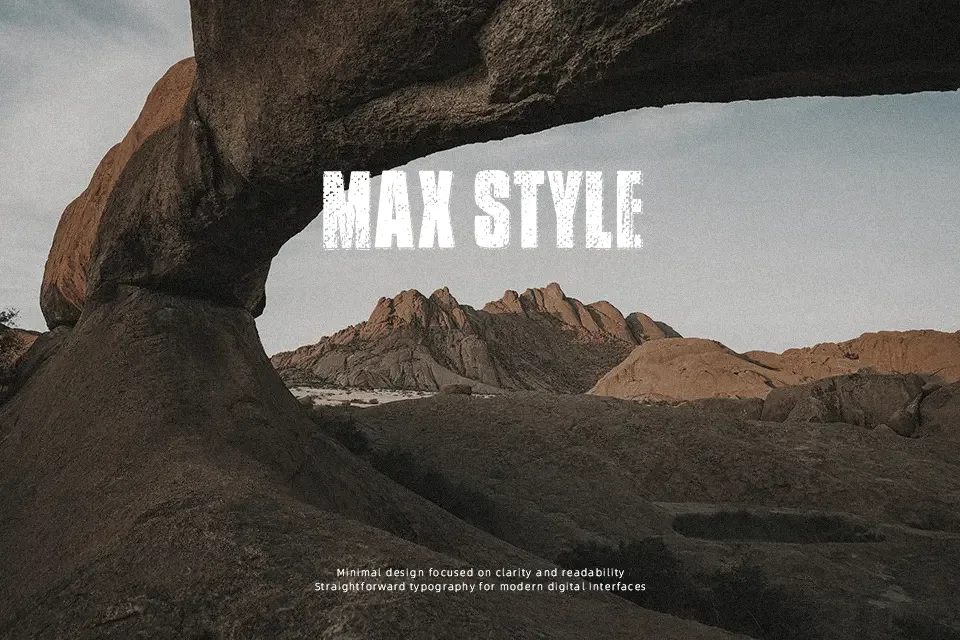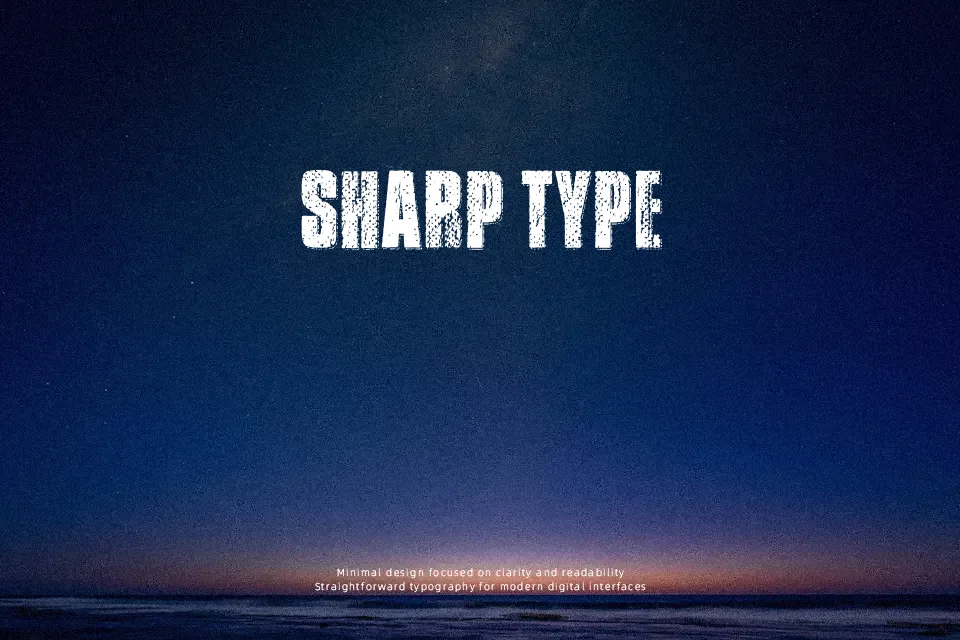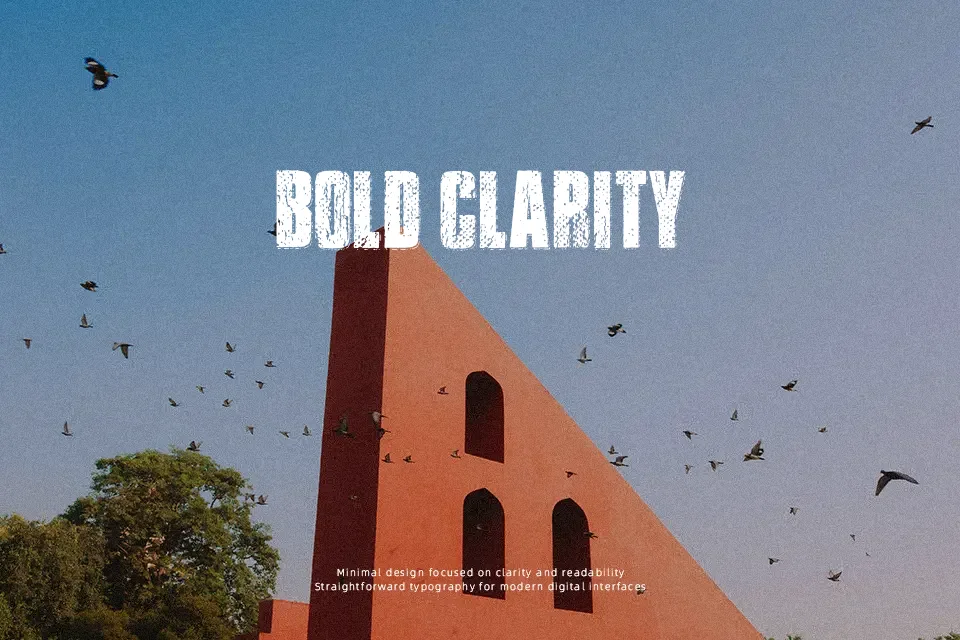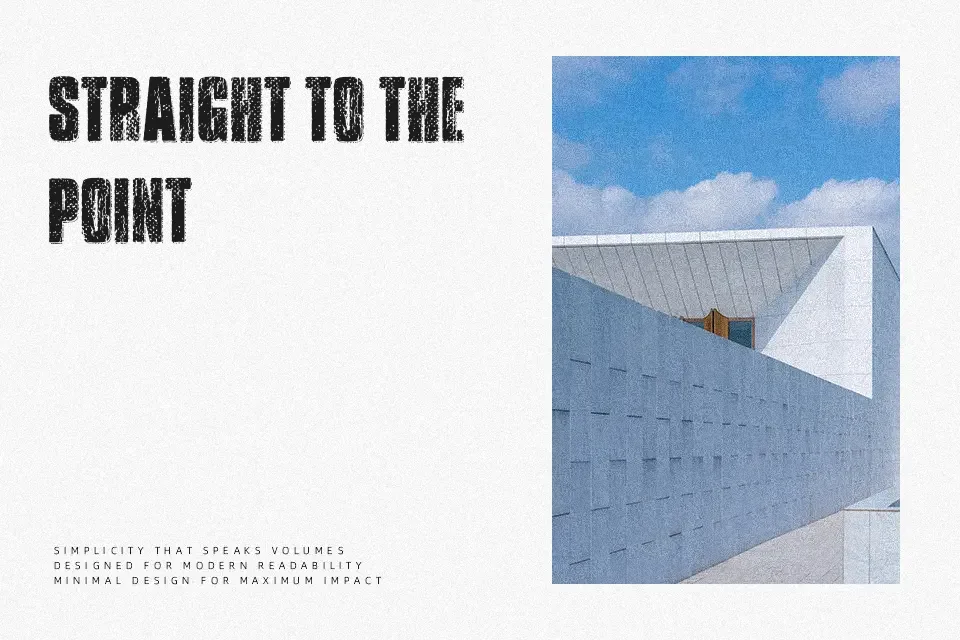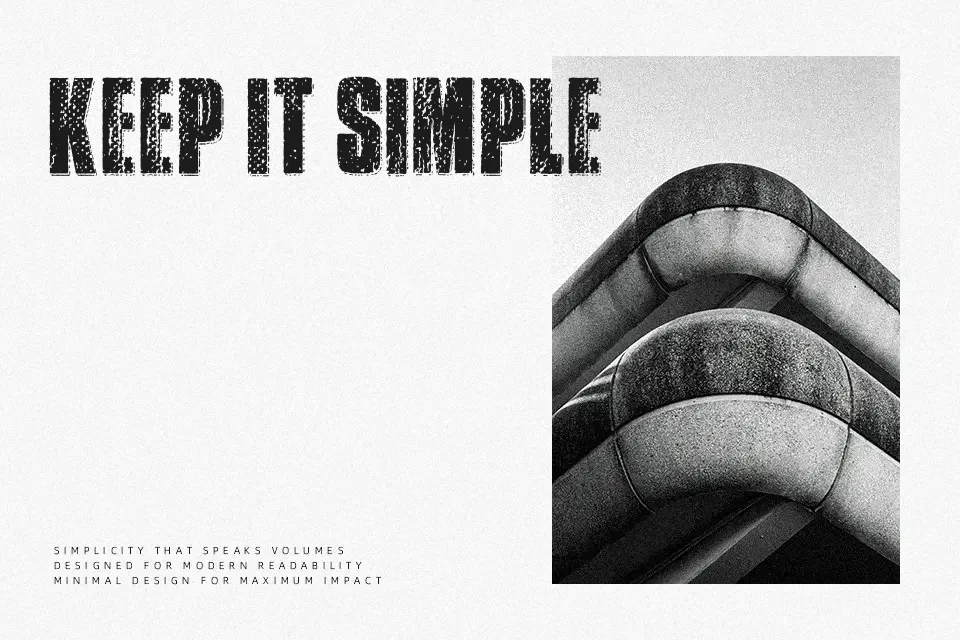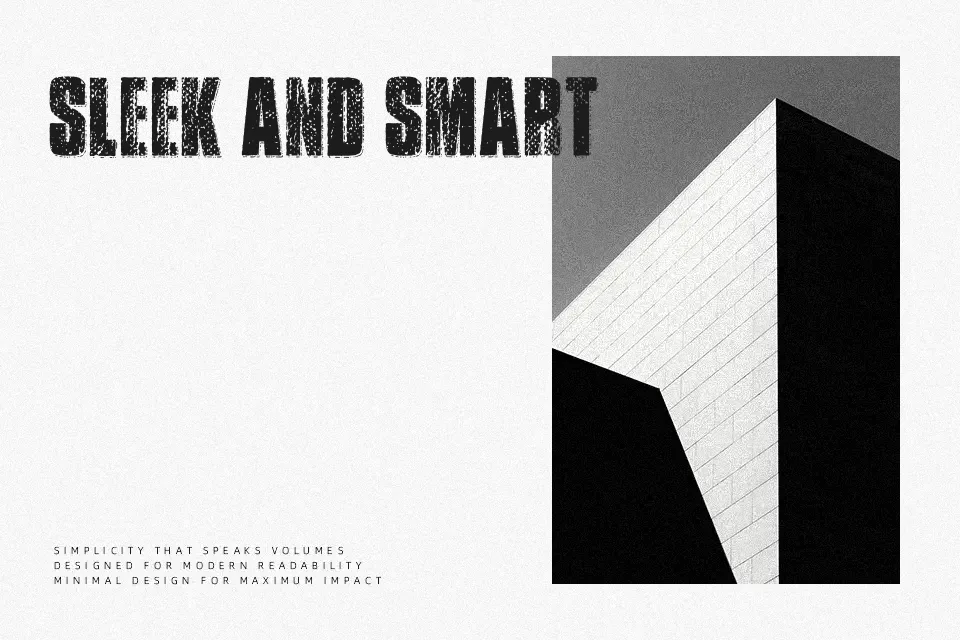
Transit Display Font
Transit Display Font showcases an all-caps structure built around thick, solid sans-serif strokes with rough, eroded exterior edges. Uniformly heavy proportions give the letterforms a grounded, industrial presence across horizontal headlines. Tight character spacing creates dense text arrangements, ensuring maximum graphic weight in headline treatments, album art, and stencil-styled apparel graphics. While the design delivers sharp visual punch at prominent sizes, the textured contours significantly diminish small-scale readability. Heavy wear patterns reduce character distinction within dense editorial layouts, making continuous body text impractical. Generous spacing adjustments help the typeface maintain distinct silhouettes in larger signage environments.
Best For: vintage product packaging, music festival posters, streetwear apparel graphics
Not Ideal For: continuous body text, mobile interface labels, dense editorial layouts
Perfect for headline, logo, and packaging, with a bold and decorative style.